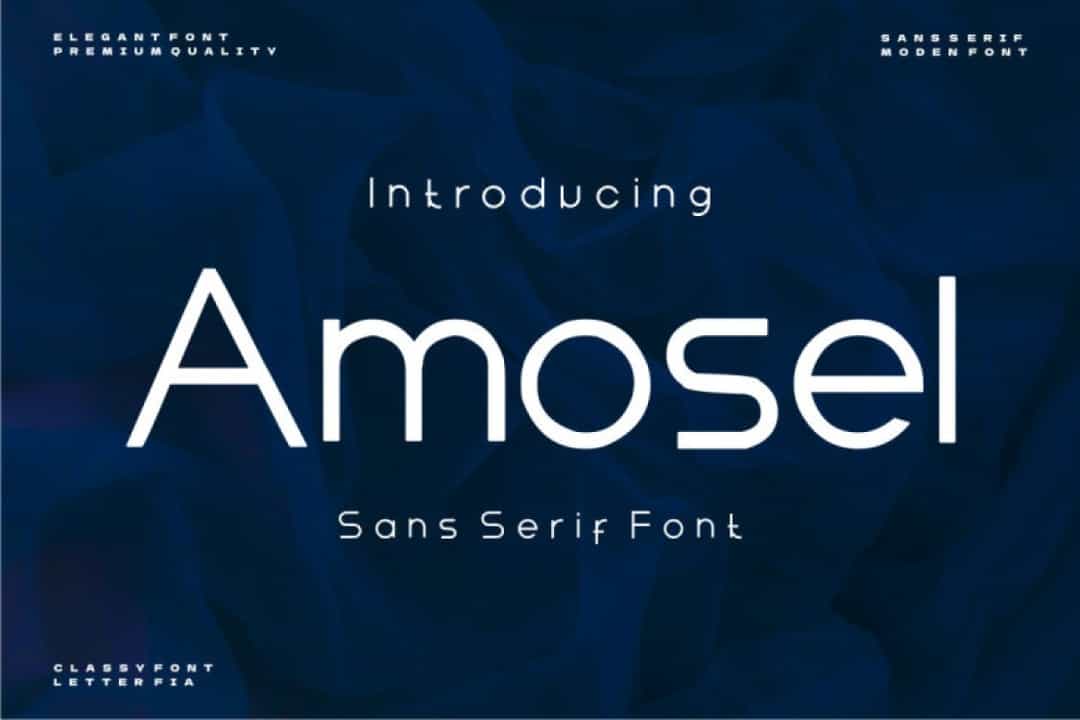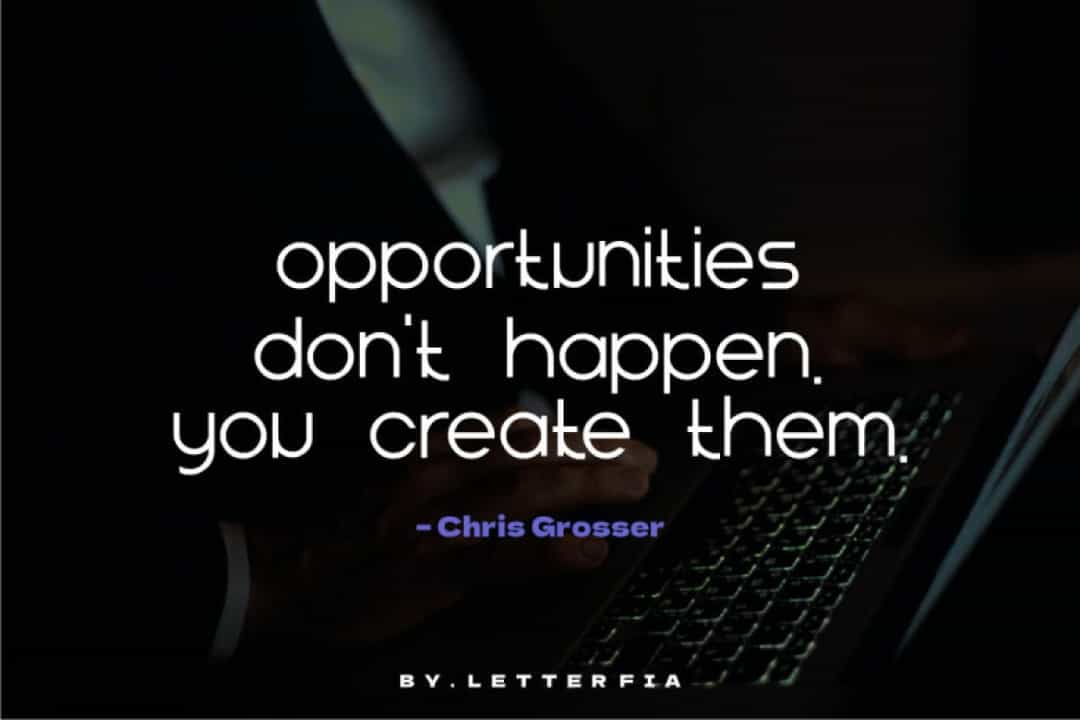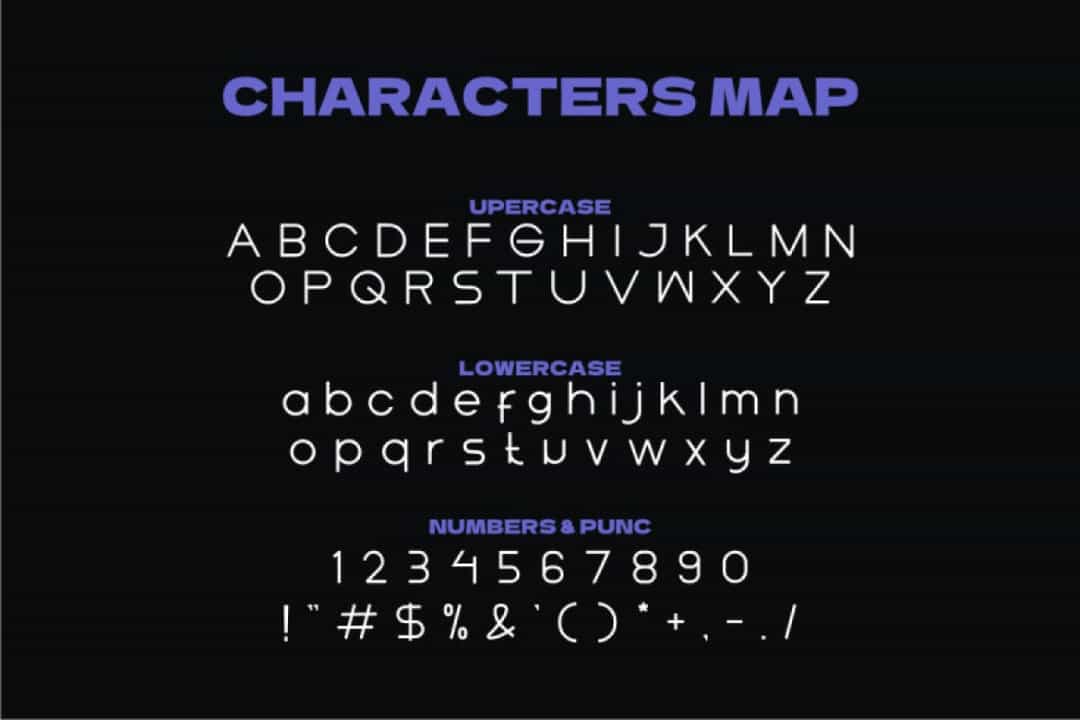
Amosel is an elegant and well-lit sans serif font. You can use it in many designs with ease – and watch as your creations stand out! Add this font to your arsenal today to bring out their best!